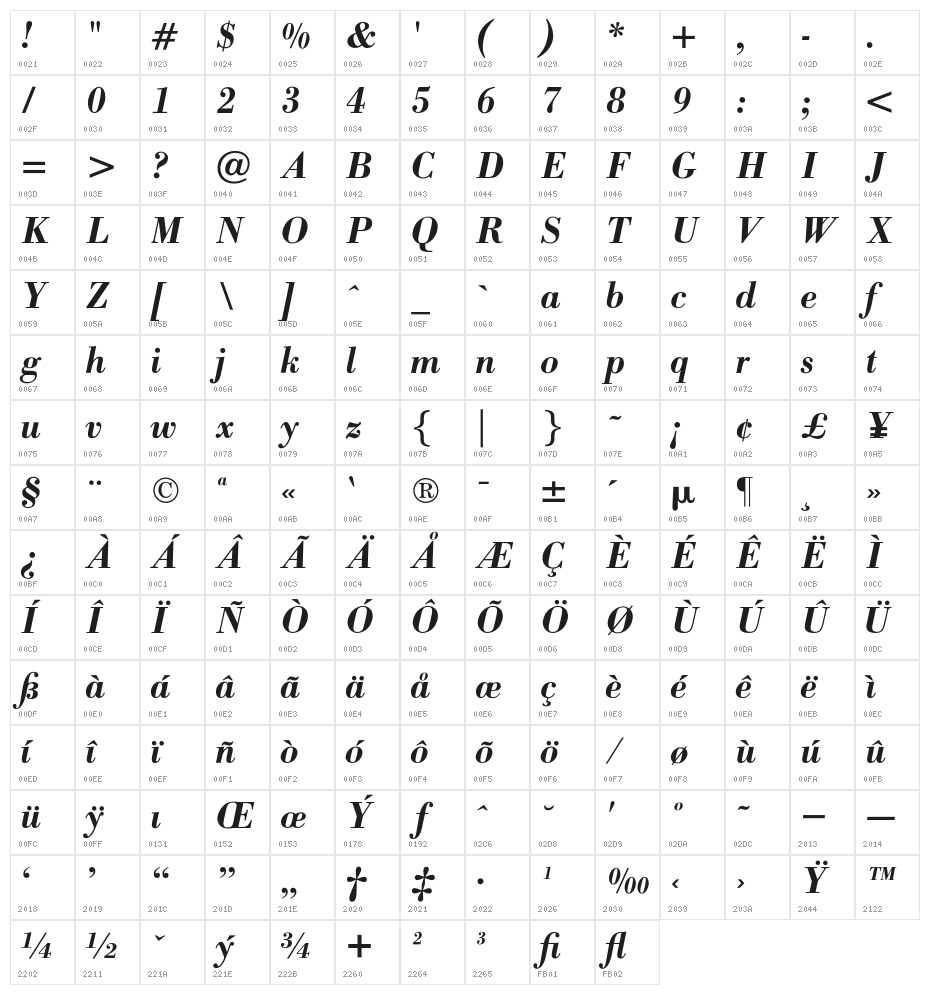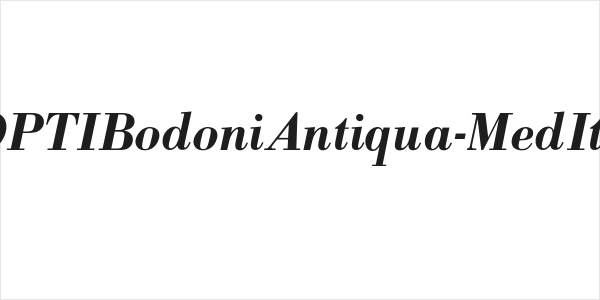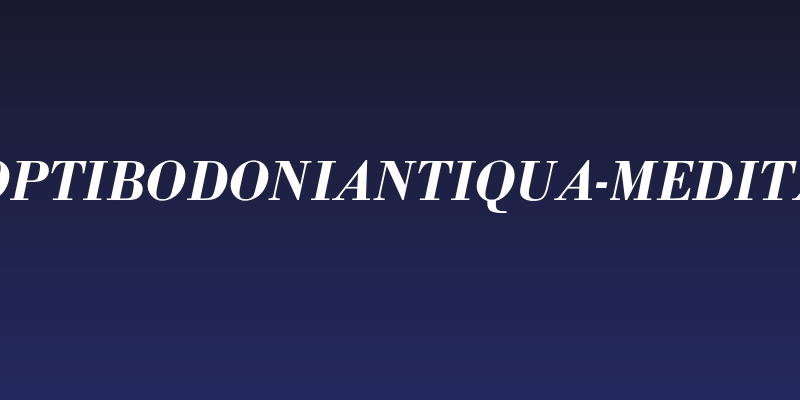
OPTIBodoniAntiqua-MedIta Font
OPTIBodoniAntiqua-MedIta Description
This elegant serif font features a classic and sophisticated design with high contrast between thick and thin strokes. The uppercase letters are tall and stately, while the lowercase letters have a graceful, flowing quality. The italics add a touch of refinement, making it suitable for formal and traditional applications. The numerals are clear and distinct, ensuring readability. Special characters are well-integrated, maintaining the font's overall aesthetic. This font exudes a timeless appeal, perfect for conveying a sense of history and tradition.
| Proposed Projects | Ideal for book covers, formal invitations, luxury branding, and editorial design. |